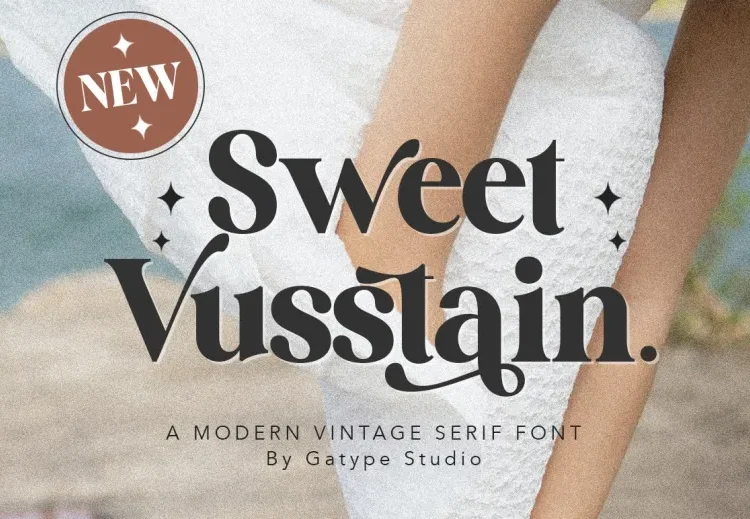
Sweet Vusstain Font
Sweet Vusstain is an antique serif typeface that combines a modern, stylish, and chic aesthetic with versatile functionality. Its unique design makes it both eye-catching and readable across various sizes, adding charm and sophistication to any project.
Key Features of Sweet Vusstain:
• Antique Charm: Blends classic serif elements with a contemporary twist for a timeless appeal.
• Modern Aesthetic: Stylish and chic, making it perfect for a range of design applications.
• Versatile Use: Readable at any font size, ideal for both digital and print projects.
Ideal Uses:
• Branding: Adds a sophisticated touch to logos and brand identities.
• Editorial Design: Enhances magazine layouts, book covers, and other print materials.
• Invitations & Event Graphics: Perfect for creating elegant wedding invites, party announcements, and more.
• Creative Projects: Ideal for designs needing a fun and lively typeface with vintage flair.